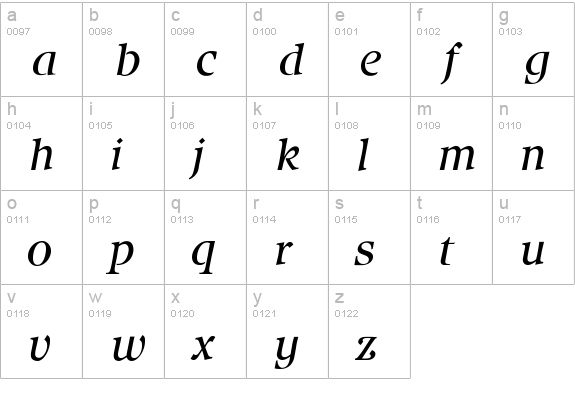
IsbellBookItalic Font Details
IsbellBookItalic is a stylish and sophisticated font that exudes elegance and grace. With its sleek and slender letterforms, this font is perfect for adding a touch of sophistication to any design project. Whether you're working on a logo, branding materials, or a stylish website, IsbellBookItalic will elevate your design to a whole new level. This font's italicized style adds a sense of movement and fluidity, making it perfect for conveying a sense of energy and dynamism in your designs. Its clean lines and delicate curves give it a timeless and classic appeal, making it suitable for a wide range of design applications. The best part? IsbellBookItalic is available for free download at FontsMarket.com. That's right, you can easily access this stunning font without spending a penny. So why wait? Add a touch of sophistication and elegance to your designs with IsbellBookItalic and create visually captivating projects that will leave a lasting impression.